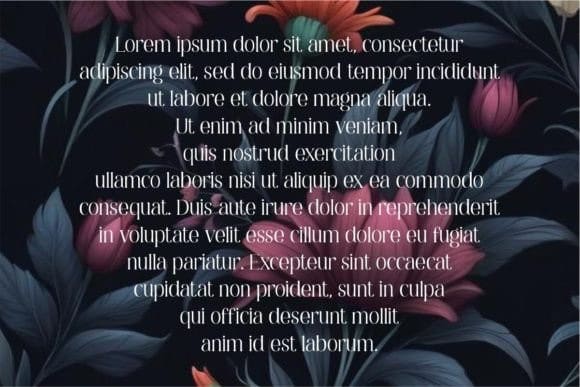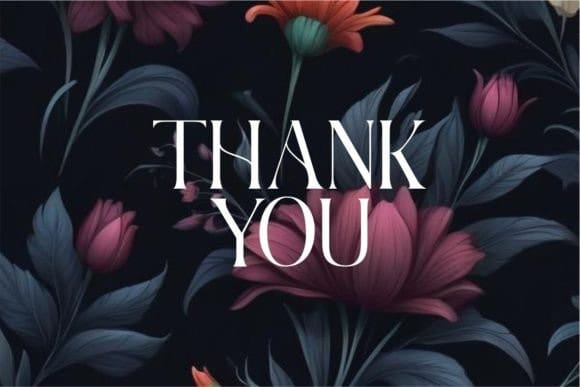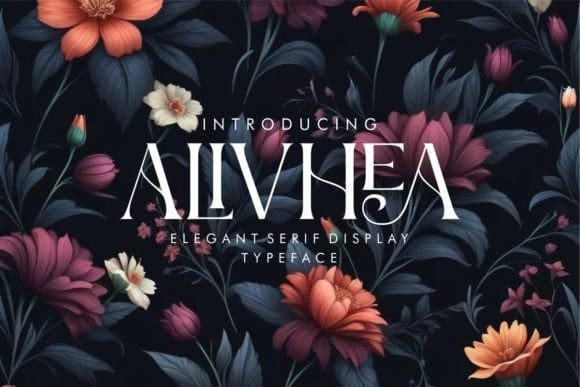
Alivhea Font
Alivhea Font is a serif display font that lives up to its name. With graceful touch of elegance, this font adds beauty to any project. Perfect for headlines, logos, or anything that needs a touch of sophistication, Alivhea stands out with its charming and distinct style. Choose Alivhea for a beautiful and eye-catching typographic experience.